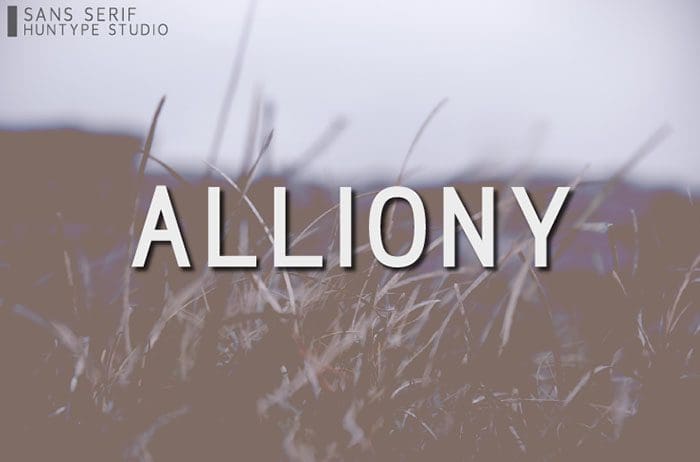
Alliony is a simple and timeless sans serif font with an undeniably clean feel. With its neat and beautiful arrangement of letters, this typeface will look outstanding in both formal and non-formal designs. Thanks to Mas Anis for sharing this wonderful font! Take a look on this portfolio for more of his stunning fonts.